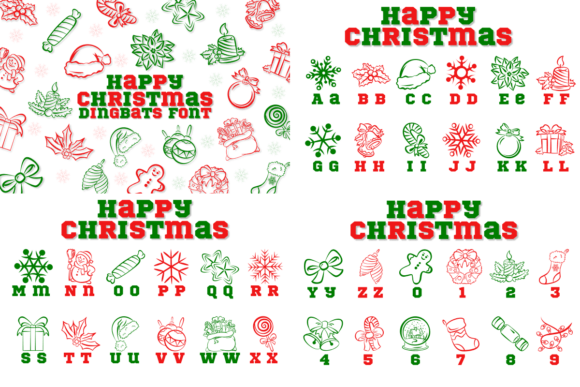
Christmas Doodle Bundle Font: Add a Cheerful Touch to Your Holiday Projects
The holiday season is upon us, and what better way to get into the spirit than with a festive font that’s perfect for all your Christmas projects? The Christmas Doodle Bundle Font is a fun and festive dingbat font set that’s filled with snowflakes, holiday decorations, and Christmas-themed designs. In this article, we’ll take a closer look at this amazing font bundle and explore its many uses.
What is the Christmas Doodle Bundle Font?
The Christmas Doodle Bundle Font is a collection of dingbat fonts that are specifically designed to add a cheerful touch to your holiday projects. This font bundle includes a wide range of Christmas-themed designs, including snowflakes, holly, mistletoe, Christmas trees, and so much more. With this font, you can create beautiful and festive holiday cards, decorations, and crafts that are sure to impress.
Features of the Christmas Doodle Bundle Font
The Christmas Doodle Bundle Font is a versatile and fun font that’s perfect for a variety of projects. Here are some of its key features:
- Festive designs: The font includes a wide range of festive designs, including snowflakes, holiday decorations, and Christmas-themed designs.
- Dingbat font: The font is a dingbat font, which means that it’s made up of images rather than letters. This makes it perfect for adding a decorative touch to your projects.
- Easily scalable: The font is easily scalable, which means that you can use it for a variety of projects, from small crafts to large banners.
Uses for the Christmas Doodle Bundle Font
The Christmas Doodle Bundle Font is a versatile font that can be used for a wide range of projects. Here are some ideas to get you started:
- Holiday cards: Use the font to create beautiful and festive holiday cards for your friends and family.
- Crafts: The font is perfect for adding a decorative touch to your holiday crafts, such as wreaths, garlands, and decorations.
- Social media graphics: Use the font to create festive social media graphics, such as holiday-themed Facebook posts and Twitter headers.
- Signs and banners: The font is perfect for creating festive signs and banners for your holiday events.
- Digital papers: Use the font to create beautiful digital papers that you can use for scrapbooking and other digital crafts.
Tips for Using the Christmas Doodle Bundle Font
Here are some tips for getting the most out of the Christmas Doodle Bundle Font:
- Experiment with different sizes: The font is easily scalable, so don’t be afraid to experiment with different sizes to see what works best for your project.
- Combine with other fonts: The Christmas Doodle Bundle Font is perfect for combining with other fonts to create a unique and festive look.
- Use for backgrounds: The font can be used to create beautiful backgrounds for your projects, such as festive holly or snowflake patterns.
- Get creative: Don’t be afraid to get creative and experiment with different designs and patterns using the font.
Why You’ll Love the Christmas Doodle Bundle Font
The Christmas Doodle Bundle Font is a must-have for anyone who loves the holiday season. Here are just a few reasons why you’ll love this font:
- F festive designs: The font includes a wide range of festive designs that are perfect for the holiday season.
- Easily customizable: The font is easily customizable, which means that you can use it to create unique and personalized projects.
- Fun and playful: The font is fun and playful, making it perfect for adding a cheerful touch to your projects.
The Christmas Doodle Bundle Font is a fun and festive dingbat font set that’s perfect for adding a cheerful touch to your holiday projects. With its wide range of festive designs, ease of use, and versatility, this font is a must-have for anyone who loves the holiday season. Whether you’re creating holiday cards, crafts, or social media graphics, the Christmas Doodle Bundle Font is the perfect choice. So why wait? Get your Christmas Doodle Bundle Font today and start creating beautiful and festive holiday projects!
Q: What is the Christmas Doodle Bundle Font?
A: The Christmas Doodle Bundle Font is a collection of dingbat fonts that are specifically designed to add a cheerful touch to your holiday projects.
Q: What types of projects can I use the Christmas Doodle Bundle Font for?
A: The Christmas Doodle Bundle Font can be used for a wide range of projects, including holiday cards, crafts, social media graphics, signs and banners, and digital papers.
Q: Can I customize the Christmas Doodle Bundle Font?
A: Yes, the Christmas Doodle Bundle Font is easily customizable, which means that you can use it to create unique and personalized projects.